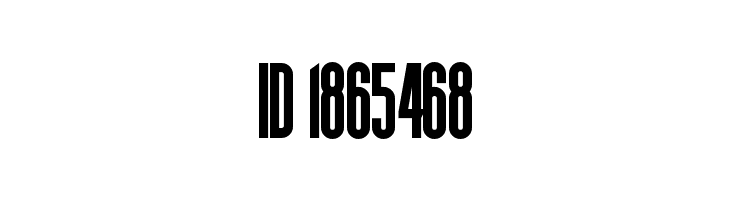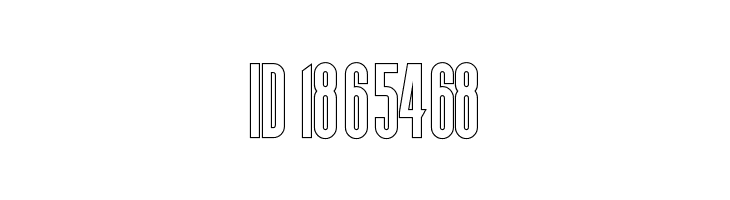
• Aref Ruqaa Regular
An elegant serif font with a blend of traditional and modern elements.
• Amatica SC Bold
A playful, handwritten-style font with tall, narrow characters and a casual feel.
• Amatica SC Regular
A playful, handwritten-style font with tall, narrow characters and uneven strokes.
• Theban Alphabet
• Anglo Saxon Runes Regular
• JMH Angelus I
A decorative font with angelic figures integrated into each letter, offering a mystical and ethereal style.
• Zilap Zodiac
• SextanRoman-Italic
• Asectica Outline Demo
A bold, geometric outline font with a modern, futuristic style.
• Asectica Simple Demo
A bold, geometric font with a modern, structured design.
• POE Vetica New Light Italic
A sleek, modern, and light italic font with a clean and minimalistic design.
• POE Vetica New Bold Italic
A bold and italic typeface with a modern, dynamic style.
• POE Vetica New Medium Italic
A modern, medium-weight italic sans-serif font with a sleek and dynamic style.
• POE Vetica New Condensed
A modern, condensed sans-serif font with excellent readability and versatility.
• POE Vetica New Light
A modern, light sans-serif font with clean lines and uniform stroke width.
• POE Vetica New Medium
A modern, sans-serif typeface with clean lines and balanced proportions.
• POE Vetica New Italic
A modern, italic sans-serif font with clean lines and balanced proportions.
• POE Vetica New Condensed Bold
A bold, condensed sans-serif font with a modern and professional look.
• POE Vetica New Bold
• POE Vetica New
A modern sans-serif font with geometric shapes and uniform strokes.
• POE Vetica New Thin
A modern, thin sans-serif font with clean lines and elegant simplicity.
• POE Vetica UI
A modern, clean sans-serif font with uniform strokes and geometric shapes.
• IBM Plex Serif Thin Italic